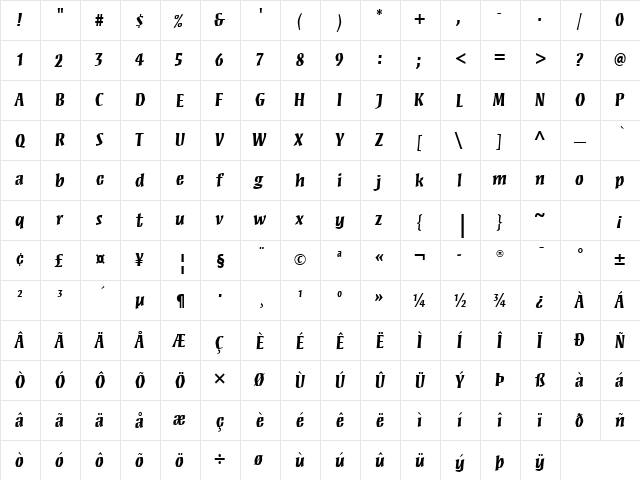
Mezz Web Pro Bold
| Designer | Michael Harvey |
Design Context for Mezz Web Pro Typeface
Mezz Web Pro takes a measured approach to typography — its balanced proportions and neutral character make it a reliable workhorse for both digital and print work. The heavy weight commands attention and anchors typographic hierarchies.